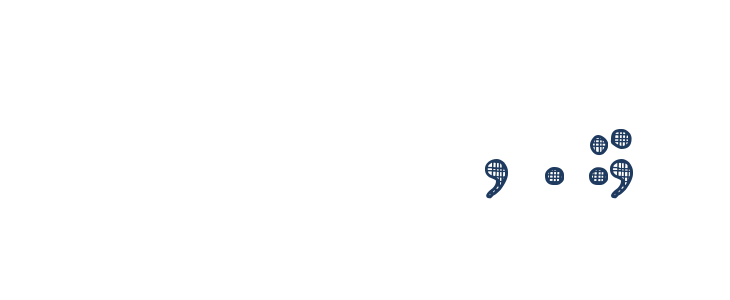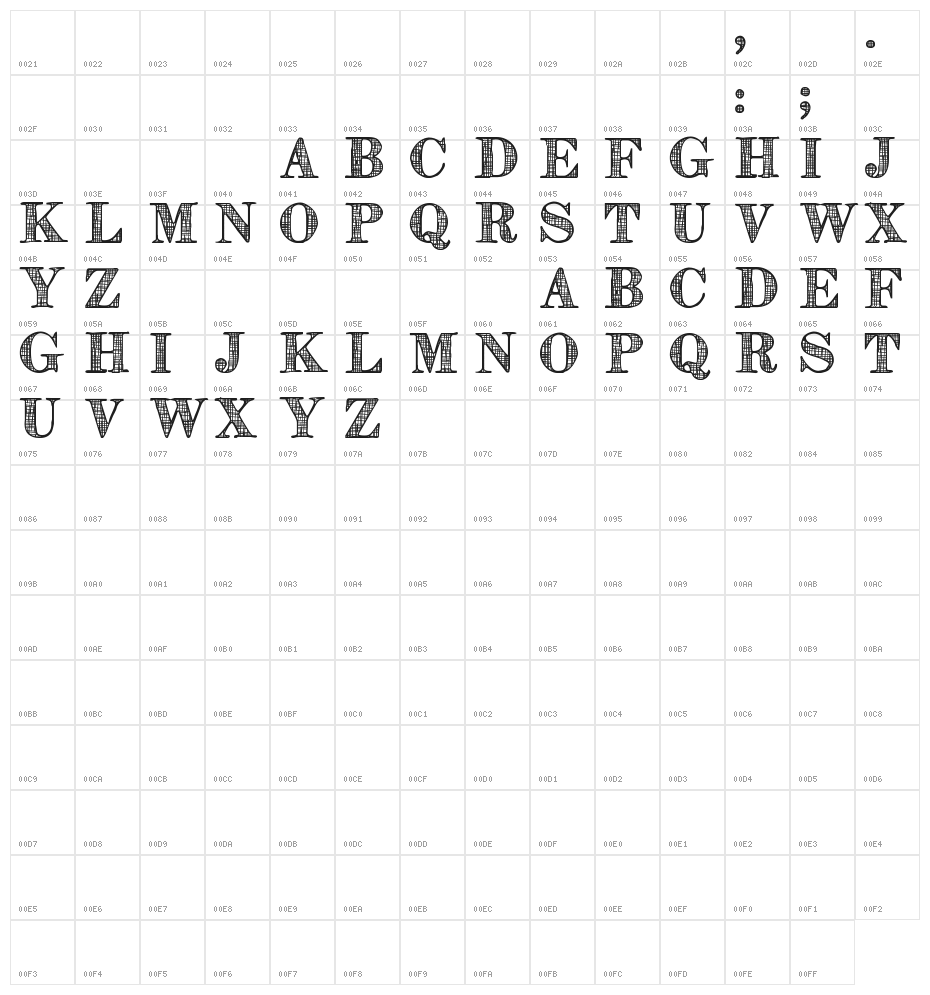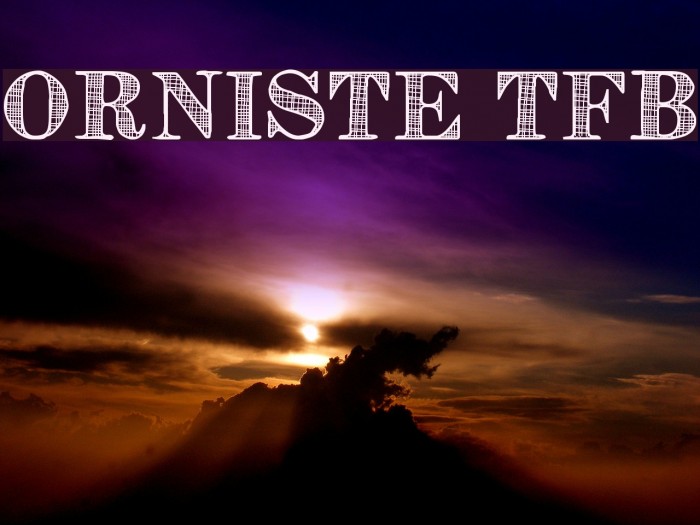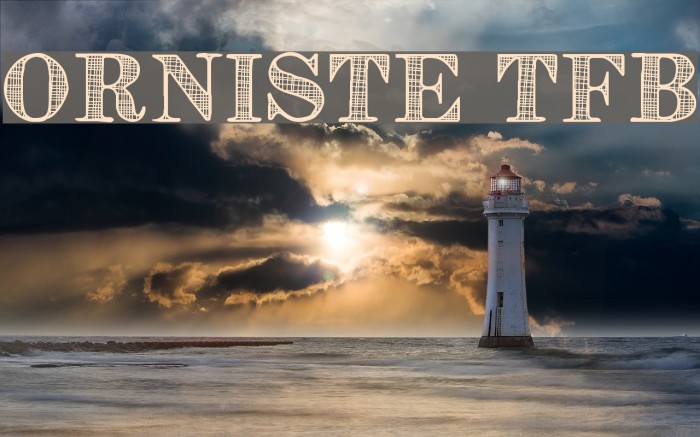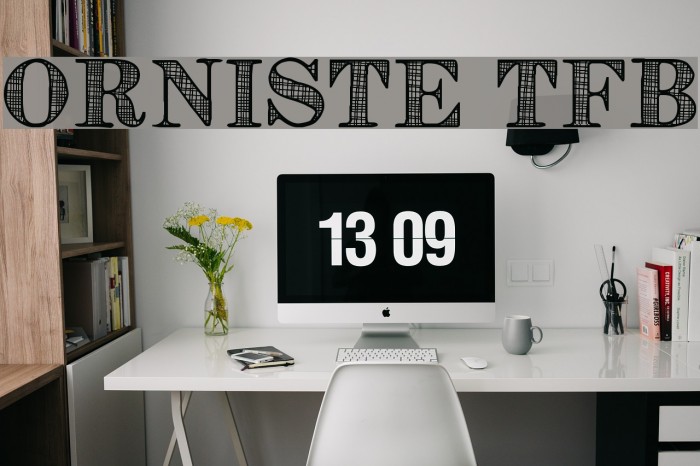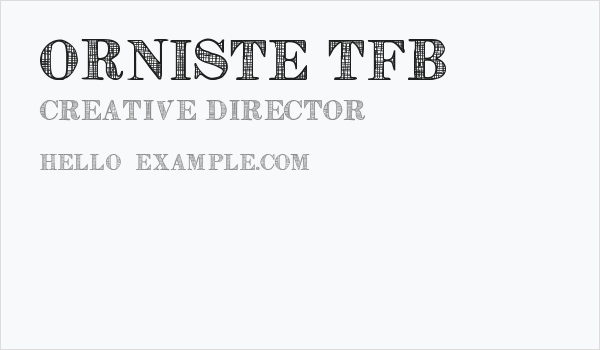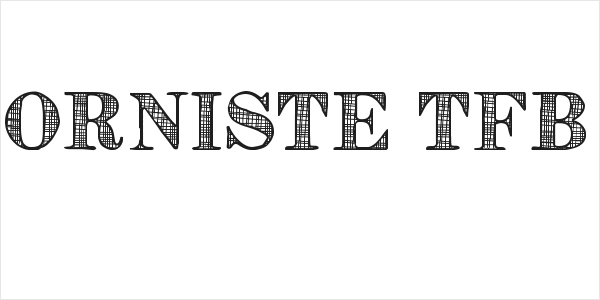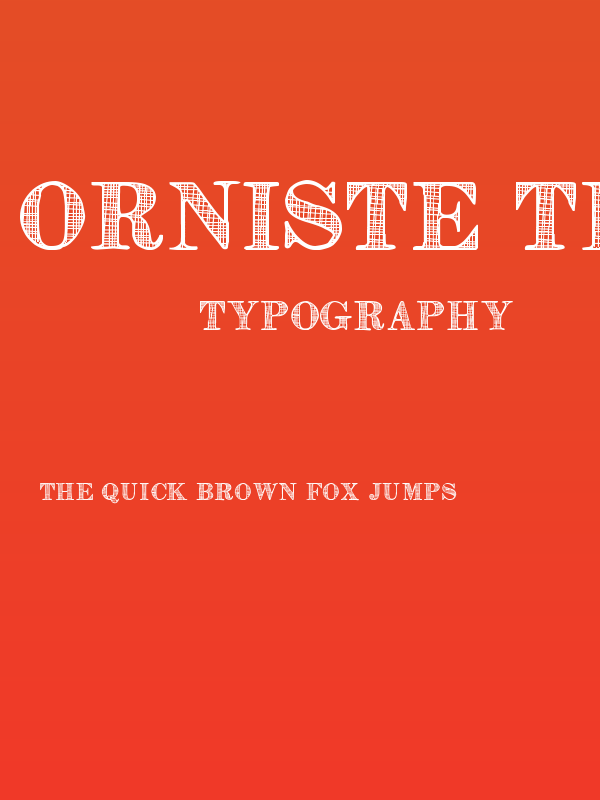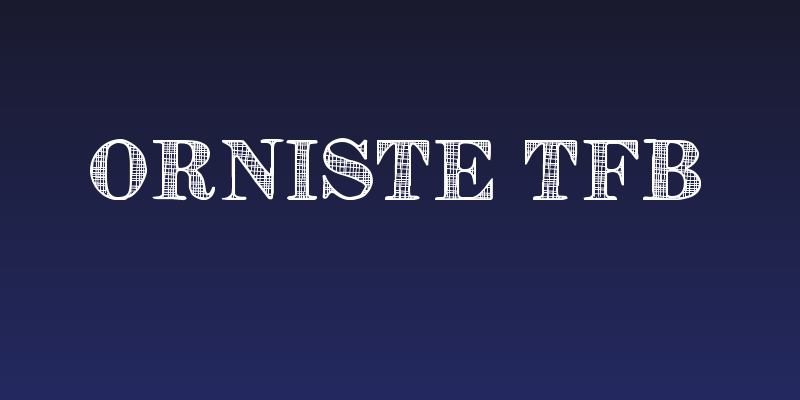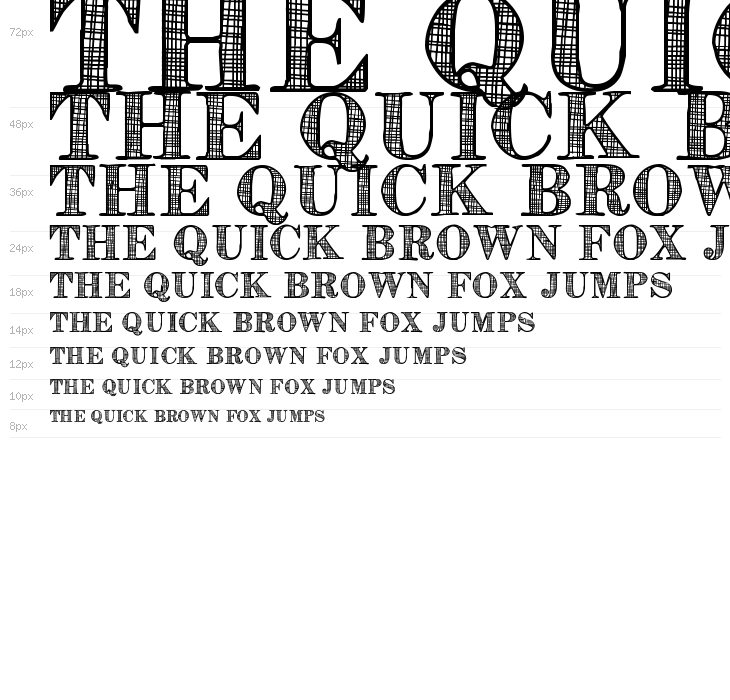
Orniste tfb Font
Orniste tfb Description
This font features a unique decorative style with intricate patterns within each character, giving it a textured and artistic appearance. The uppercase letters are bold and eye-catching, making them suitable for display purposes. The font has a vintage flair, reminiscent of old-fashioned signage or posters. The characters are well-defined with a consistent pattern that adds depth and interest. The overall design is both playful and sophisticated, making it versatile for various creative projects.
Overall StyleVintage, Decorative
Proposed ProjectsIdeal for vintage-themed posters, artistic book covers, creative branding, and decorative signage.